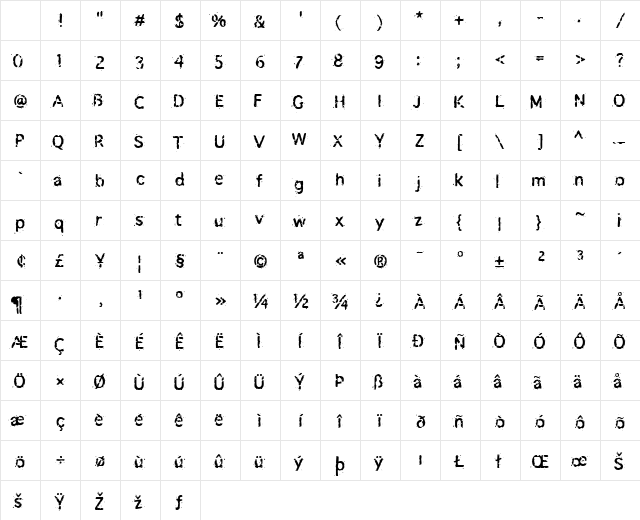
Complete Not Too Shabby Plain Regular glyph index. Displaying only characters natively supported by Not Too Shabby Plain Regular font.
Not Too Shabby Plain is a composed and adaptable typeface that performs quietly and consistently across a wide range of design contexts.